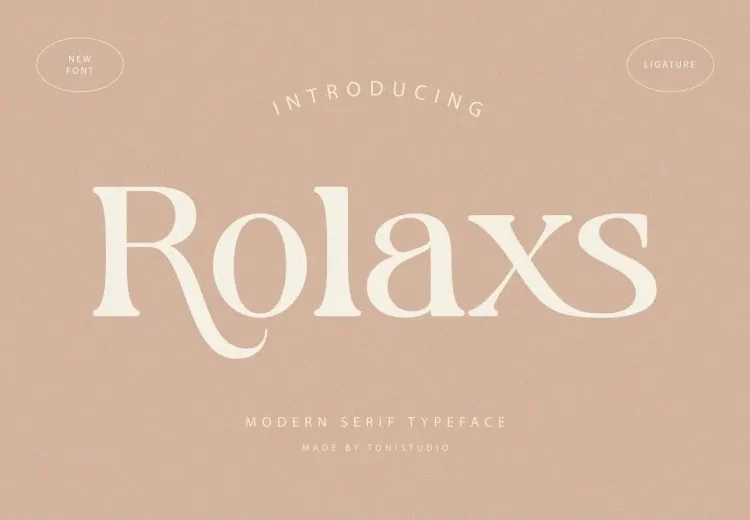
Rolaxs Font
Rolaxs is a contemporary serif typeface that combines a bold, thicker appearance with refined lines, offering a striking balance between modern style and old-fashioned charm.
Its bold design at the meeting points of the strokes adds visual impact, making it ideal for a variety of design projects. Whether you’re working on quotes, social media posts, blog entries, or branding, Rolaxs brings sophistication and character to your work.
With its versatile design, Rolaxs also excels in magazine layouts, wedding invitations, and other creative endeavors, ensuring that every project stands out with its bold yet refined appeal. Its timeless elegance makes it suitable for both contemporary and classic design needs.